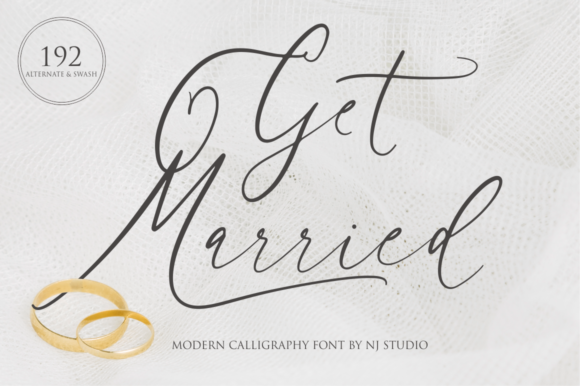
Welcome to the world of digital artistry, where written words are transformed into captivating visual masterpieces. Discover Get Married Font, a script font that exudes elegance and free-flowing beauty. Enter the realm of creative expression and let your imagination soar with this captivating font.
Get Married Font is an enchanting script font born from the creative vision of NJStudio, renowned for crafting exquisite digital masterpieces. It's a font that dances across the page, carrying your words with grace and charm. Dive into a world of artistic possibilities, where everyday text becomes an extraordinary visual journey.
Express your individuality with this script font, meticulously designed to add a touch of sophistication to your projects. Whether you're crafting packaging products, designing invitation cards, or creating flyers and mockups, Get Married Font elevates your designs to new heights. Its versatility extends to event posters and any project yearning for high-quality vibes.
Embrace the allure of its beautifully balanced character, seamlessly harmonizing with diverse design aesthetics. The font's PUA encoding unlocks a treasure trove of glyphs and swashes, empowering you to effortlessly infuse your creations with a touch of whimsy and artistry.
With Get Married Font, embark on a creative odyssey, transforming ordinary text into captivating visual expressions. Immerse yourself in a world of artistic exploration, where your imagination takes center stage. Unlock the potential of this elegant script font and let your creativity flourish.